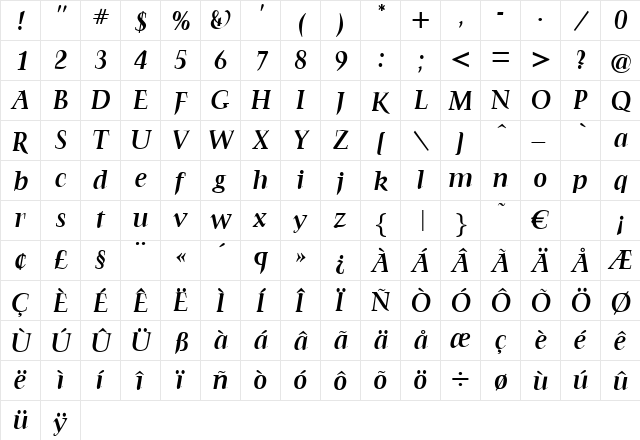
FrancoisBoldItalic Regular Font Preview
Design Context for FrancoisBoldItalic Typeface
FrancoisBoldItalic takes a measured approach to typography — its balanced proportions and neutral character make it a reliable workhorse for both digital and print work. The dynamic lean of this cut emphasises speed and emphasis in any layout. Its bold stroke weight gives it real presence on the page.